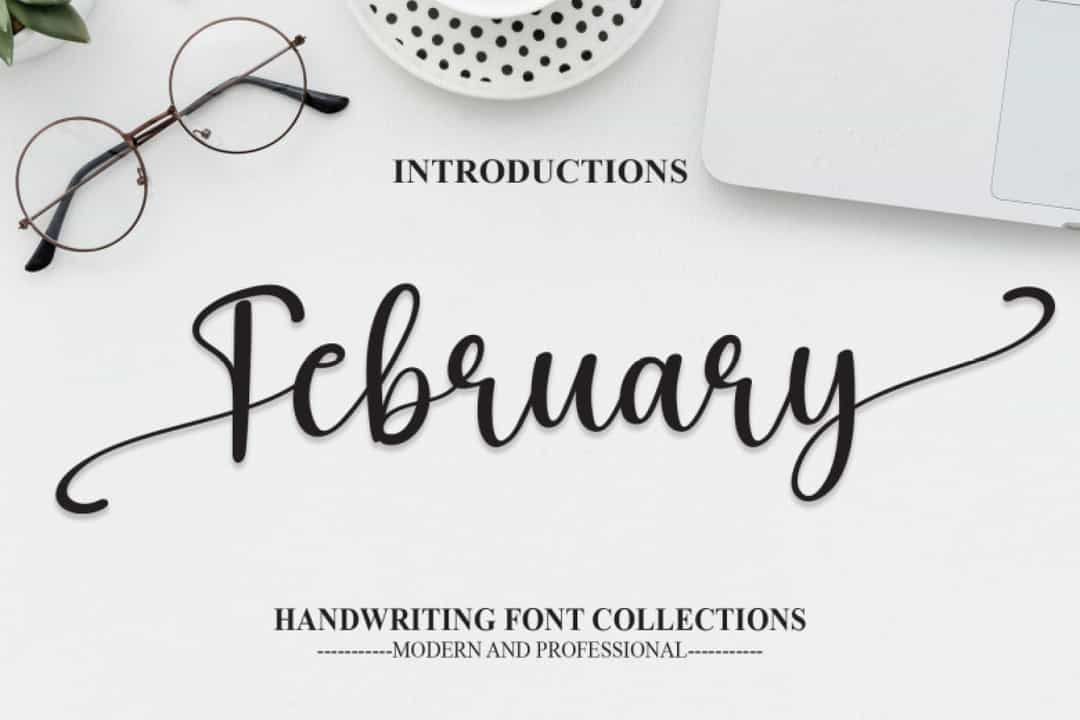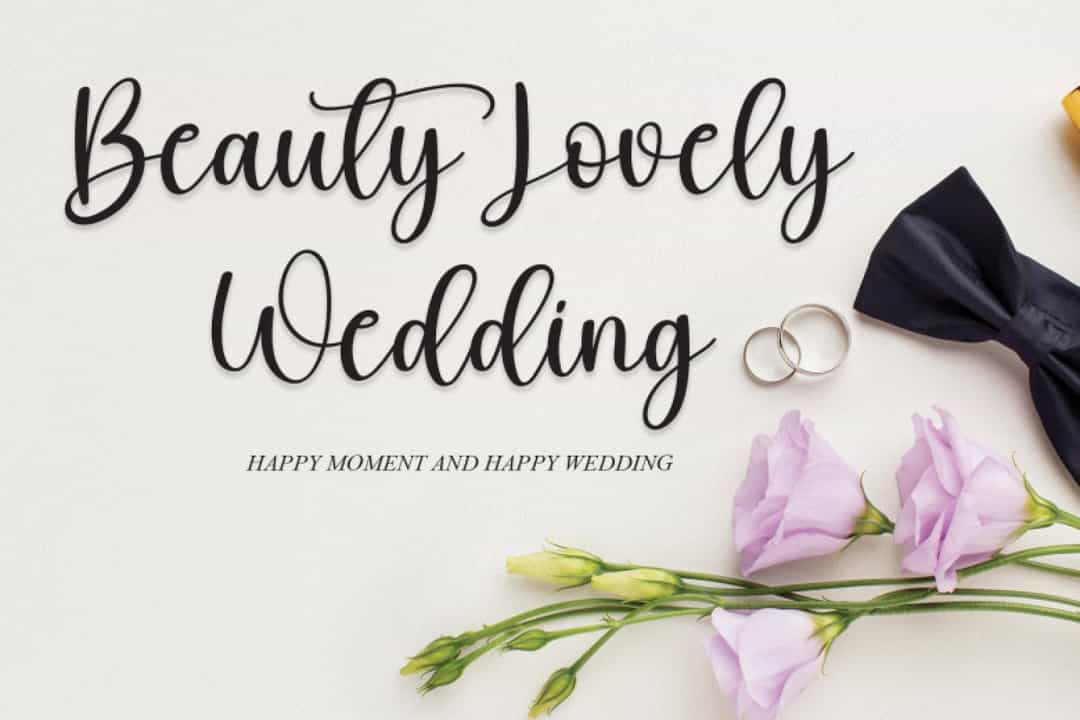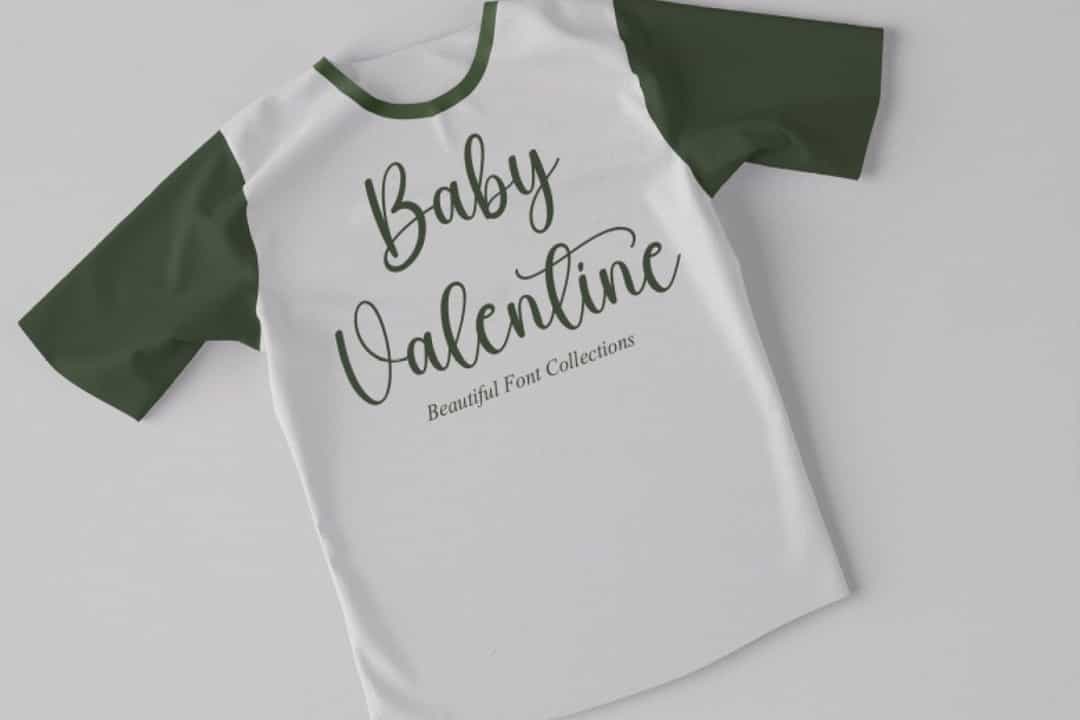
February is a beautiful and light calligraphy handwritten script font with a unique feel and a stunning impact. It will add a luxury spark to any design project that you wish to create. This font is PUA encoded which means you can access all of the glyphs and swashes with ease!